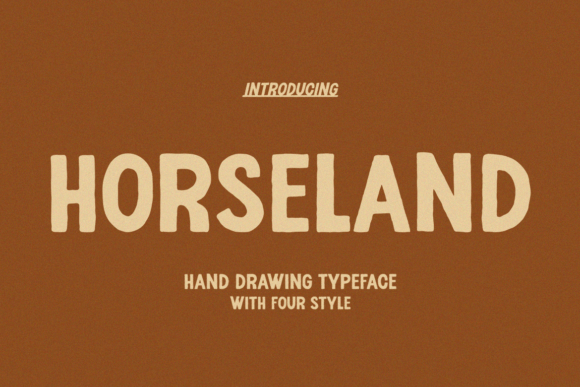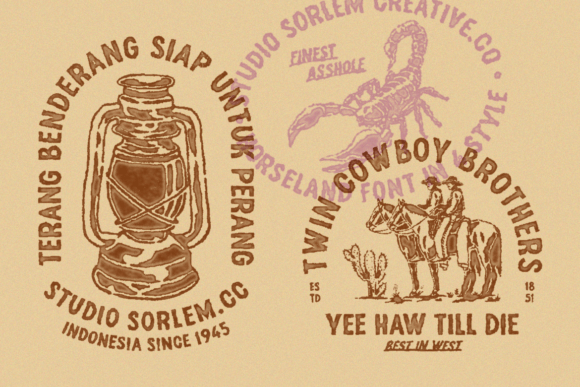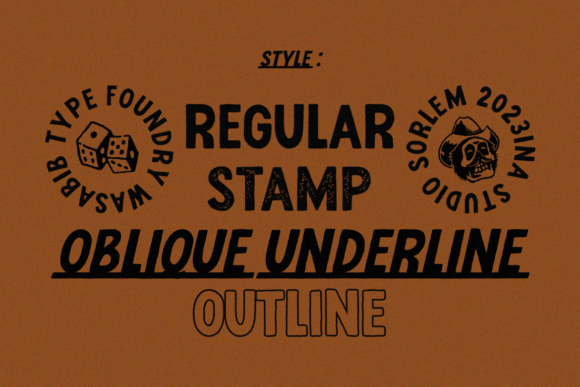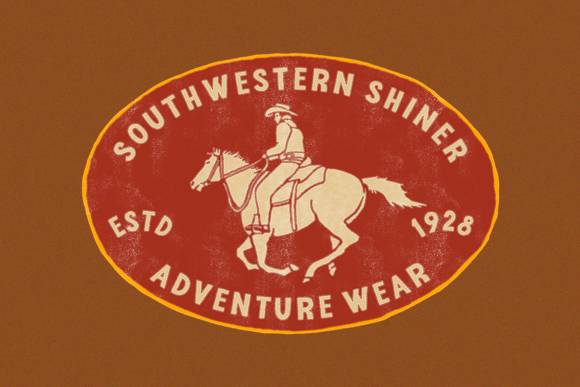
Horseland Font: A Rustic Vintage Typeface for Authentic Branding
About the Horseland Font
The wait is over! The incredible Horseland Font is now available for your design toolkit. Horseland is a hand-drawn vintage typeface font with a charming and nostalgic feel. This font captures the essence of handcrafted lettering, effortlessly evoking a sense of authenticity and warmth. The textured appearance of Horseland adds depth and character to your designs, making it perfect for projects that aim to achieve a vintage aesthetic.
Horseland’s charming, nostalgic feel makes it ideal for projects requiring a vintage or rustic aesthetic. It works exceptionally well in headlines, short-form text on packaging, posters, and branding materials for products emphasizing handcrafted quality or a heritage feel. Avoid using it for large bodies of text or UI elements where readability is paramount; its textured nature can hinder legibility in smaller sizes or continuous paragraphs.
Pair Horseland effectively with clean sans-serif fonts like Montserrat or Lato for a balanced contrast. For a more rustic pairing, consider a serif typeface such as Playfair Display or Merriweather. These pairings maintain readability while complementing Horseland’s handcrafted character.
Horseland projects a friendly, approachable, and slightly whimsical personality. It is best suited for brands focusing on natural products, artisanal goods, vintage clothing, or family-oriented businesses where a warm and inviting tone is desired.
Horseland Font Usage Examples
Horseland Font Example